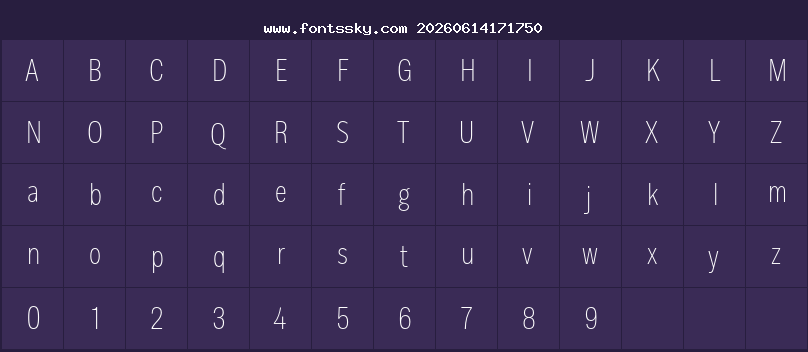
• Designer: Cosimo Lorenzo Pancini
• Manufacturer: Studio Kmzero & Zetafonts
About Body Text Slim Light.otf
Body Text Slim Light.otf is a modern, elegant sans-serif font designed for ultimate readability and visual harmony. Perfect for branding, headlines, web design, and print materials.